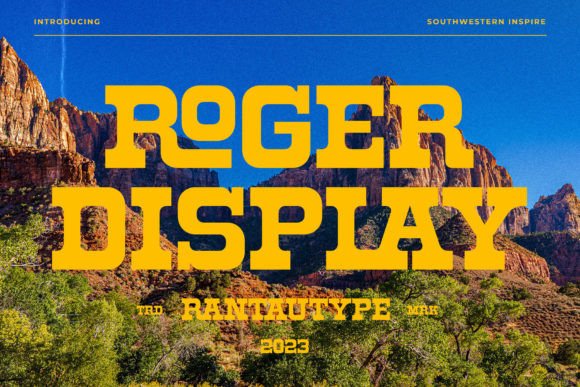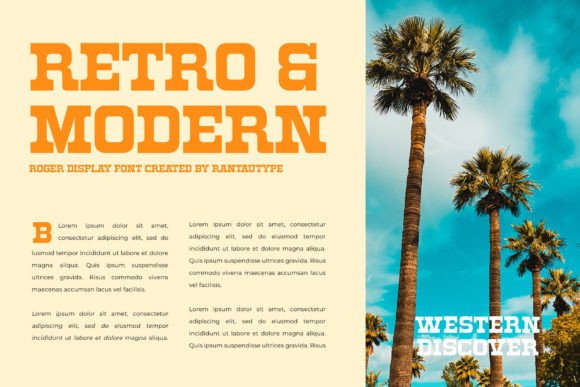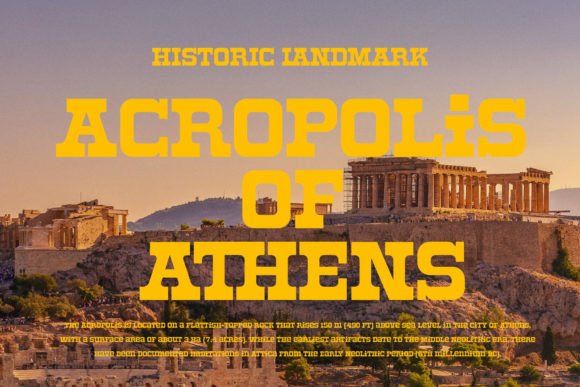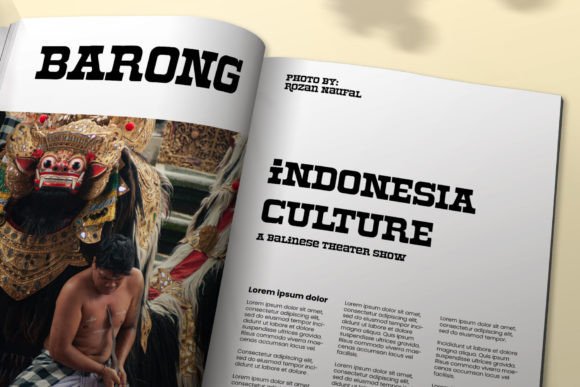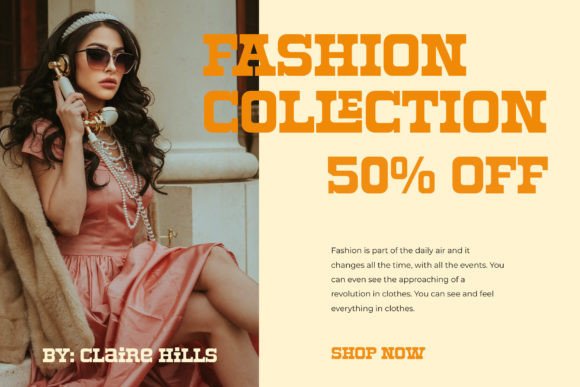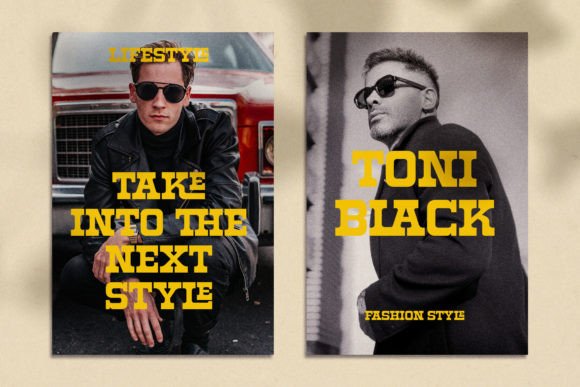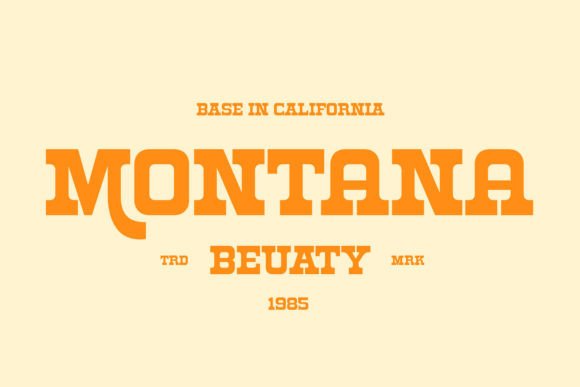
Roger Display Font
Roger Display is a beautiful display typeface inspired by the midcentury southwestern type we keep this font look retro but modern. Roger display comes with more alternate and ligature to make it more option design. This fun font can be used for retro and modern design.
Roger Display is a beautiful choice for any creative endeavor, creating fun, modern, chic, lifestyle designs such as logos, titles, covers, branding, display and magazine, and more.